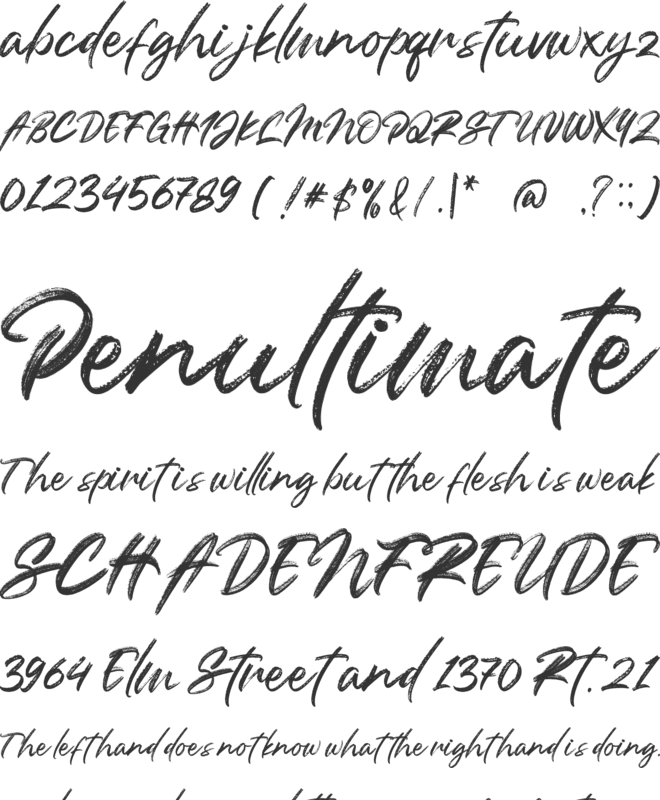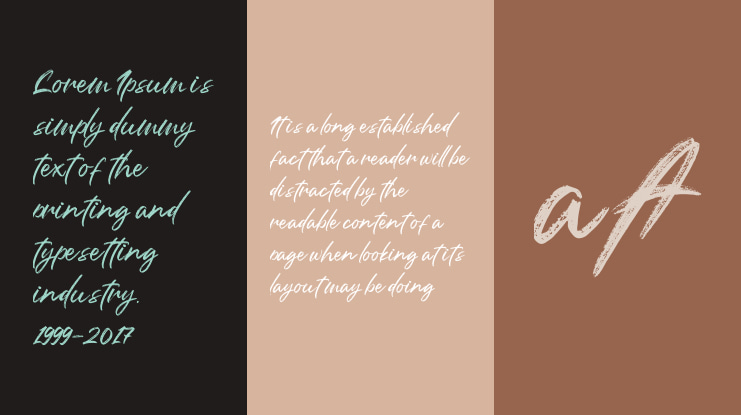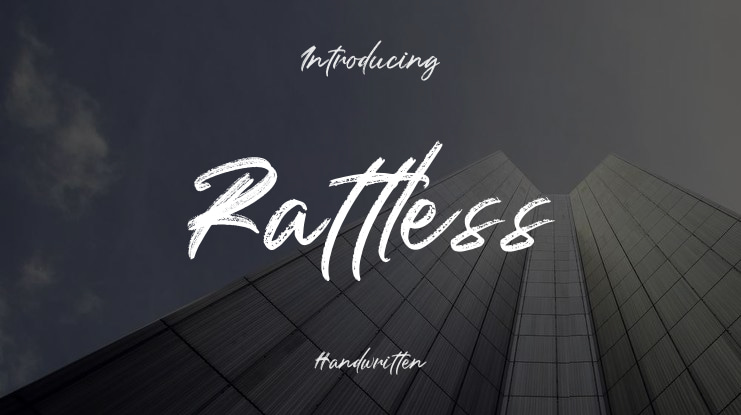
Rattless Font
Rattless is a trendy brushed display font that has a street art vibe. This font is suitable for designs such as t-shirts, sportswear, logos, advertisements, clothing, and more.---------------------------------------------------------This font is used only for demos (Demo license)If you want to use this font for commercial use please contact email:  click the link below:https://www.creativefabrica.com/product/minimoon/ref/797111/If you want to see more other fonts, please click:https://www.creativefabrica.com/designer/kostfour-std/Any donations are very appreciated. Paypal account for donation:https://www.paypal.me/bhamalgifaryThank You:)